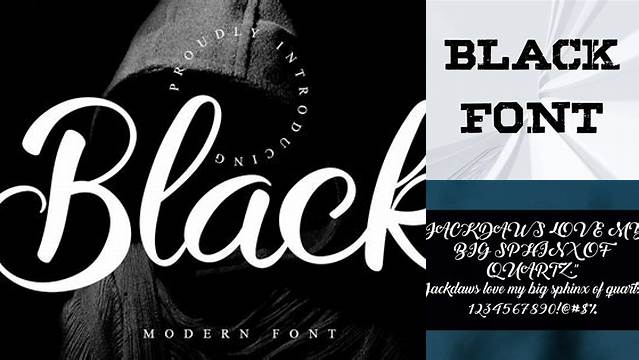
Free Apparel Black Fonts: Download & Design Guide
Are you a designer, looking for the perfect font to elevate your apparel designs? Do you want something that's both stylish and easy to read, and, of course, free? Look no further! This guide is your ultimate resource for finding and using the best apparel black fonts available for free download. We'll explore everything from the importance of font selection to the best sites to find these fonts, and even tips on how to use them effectively in your designs. So, let's dive in and unlock the secrets to stunning apparel typography!
Why Font Choice Matters in Apparel Design
Choosing the right font is absolutely crucial in apparel design, guys! It’s not just about picking something that looks cool; it's about communicating a message, establishing a brand identity, and making sure your designs are both visually appealing and easily understood. Think about it: the font you choose can make or break the entire vibe of a t-shirt, hoodie, or any other piece of clothing. It can be the difference between something that's trendy and something that's just plain confusing or hard to read. The right font complements the overall design, enhancing the visual appeal and drawing the viewer’s eye. The font should be chosen considering the target audience, the message to be conveyed, and the overall aesthetic of the apparel. The font should be legible and clear, so the message is conveyed effectively. The right font will create a cohesive and memorable design that stands out and appeals to the target demographic. When selecting a font, consider the overall design of the apparel. Think about what message you want to communicate through your design. Is it fun and playful, or serious and professional? The font should reflect the tone and style of the message. The selected font should be easily readable, especially in different sizes and on different backgrounds. Fonts that are too intricate or stylized may be difficult to read, which can detract from the overall impact of the design. Make sure the font you select is compatible with the design software or platform you are using. Always ensure the font is commercially usable if you intend to sell your apparel designs. Fonts play a huge part in conveying the brand’s identity and communicating the brand’s story. Also, fonts impact the overall appeal of the design and can improve the visual communication with the audience.
So why is font choice so important?
- Brand Identity: Fonts contribute to your brand’s personality. A bold, modern font suggests a different vibe than a classic, elegant one.
- Readability: Clear fonts ensure your message is easily read, which is super important on apparel.
- Visual Appeal: A well-chosen font enhances the overall look of your design, making it more attractive.
- Message Conveyance: Fonts help you communicate your brand's tone and values.
Best Practices for Using Black Fonts in Apparel Design
Alright, so you've downloaded some awesome apparel black fonts. Now, how do you use them effectively, guys? Here are some tips to make sure your designs look fantastic:
- Contrast is King: Make sure your black fonts have enough contrast with the background color of your apparel. A light-colored font on a dark background, or vice versa, is usually a safe bet.
- Consider Readability: Choose fonts that are easy to read, especially at the size they will be printed on your apparel. Avoid fonts that are overly intricate or have thin strokes, as these can be difficult to read from a distance.
- Alignment and Spacing: Pay attention to the alignment and spacing of your text. Good alignment and appropriate spacing make your design look clean and professional. Poor alignment can make the design look cluttered and unprofessional. The spacing between letters (kerning) and lines of text (leading) can significantly impact readability and visual appeal. Consider letter spacing to ensure each word is legible. For example, in larger fonts, reduce the spacing between letters. Kerning is especially important in headlines and short phrases where the overall appearance matters. The leading of the text can also be critical, especially when designing for readability. Always ensure sufficient space between lines of text so the words don’t overlap.
Conclusion: Unleash Your Creativity with Free Apparel Black Fonts
There you have it, guys! This comprehensive guide on how to find and use free apparel black fonts should give you a great start to creating amazing apparel designs. Remember to be creative, have fun, and experiment with different fonts and styles. By following these tips, you'll be well on your way to creating eye-catching and stylish apparel designs that people will love. Happy designing!